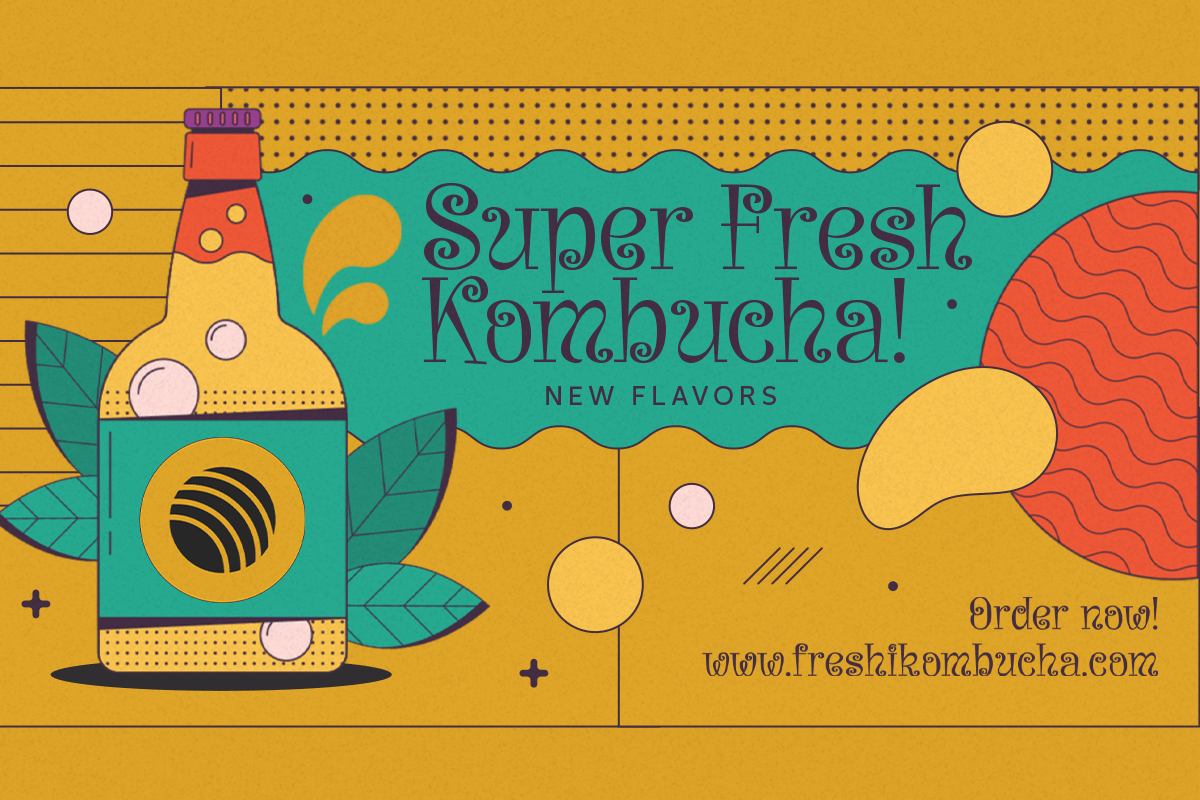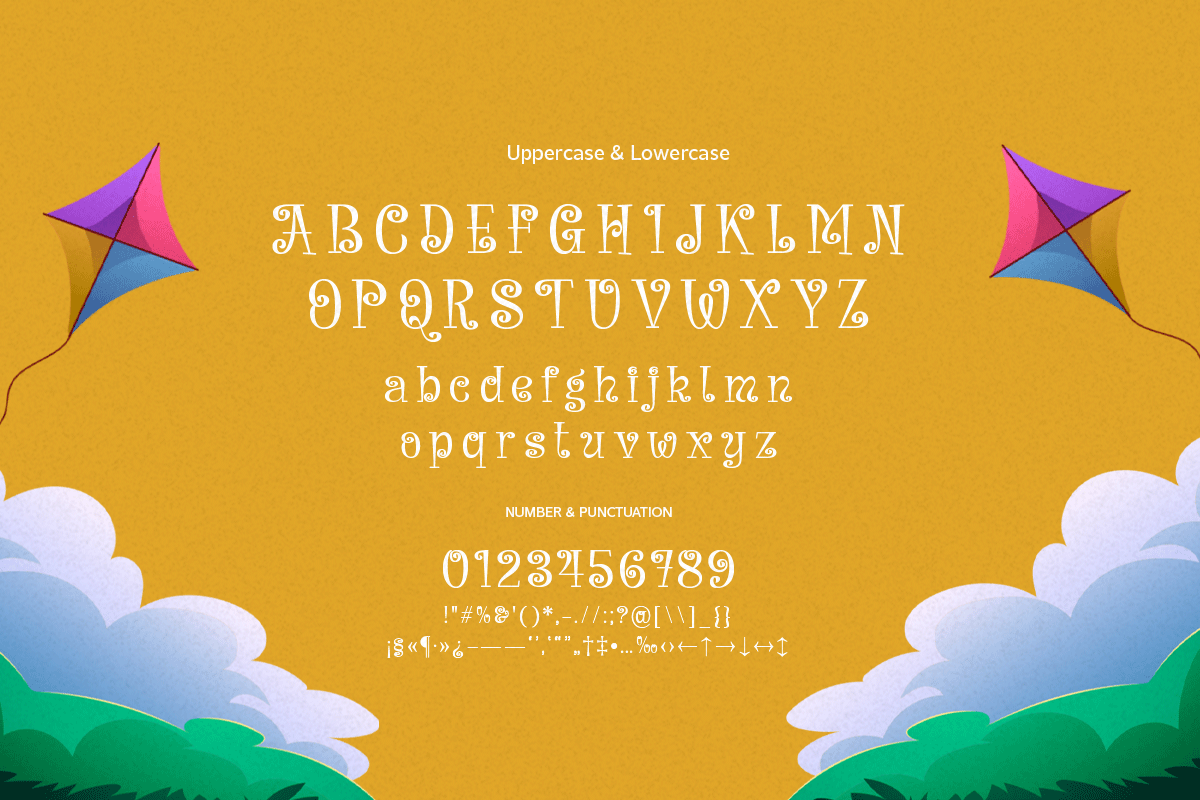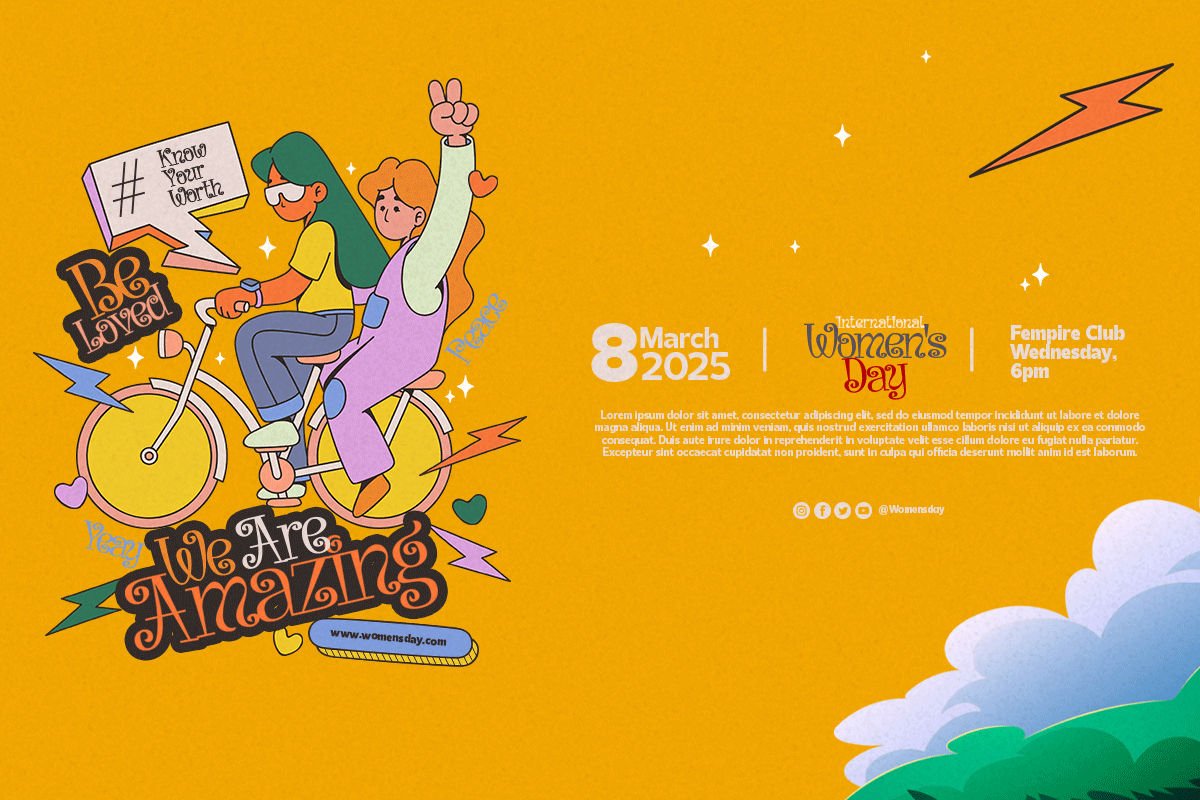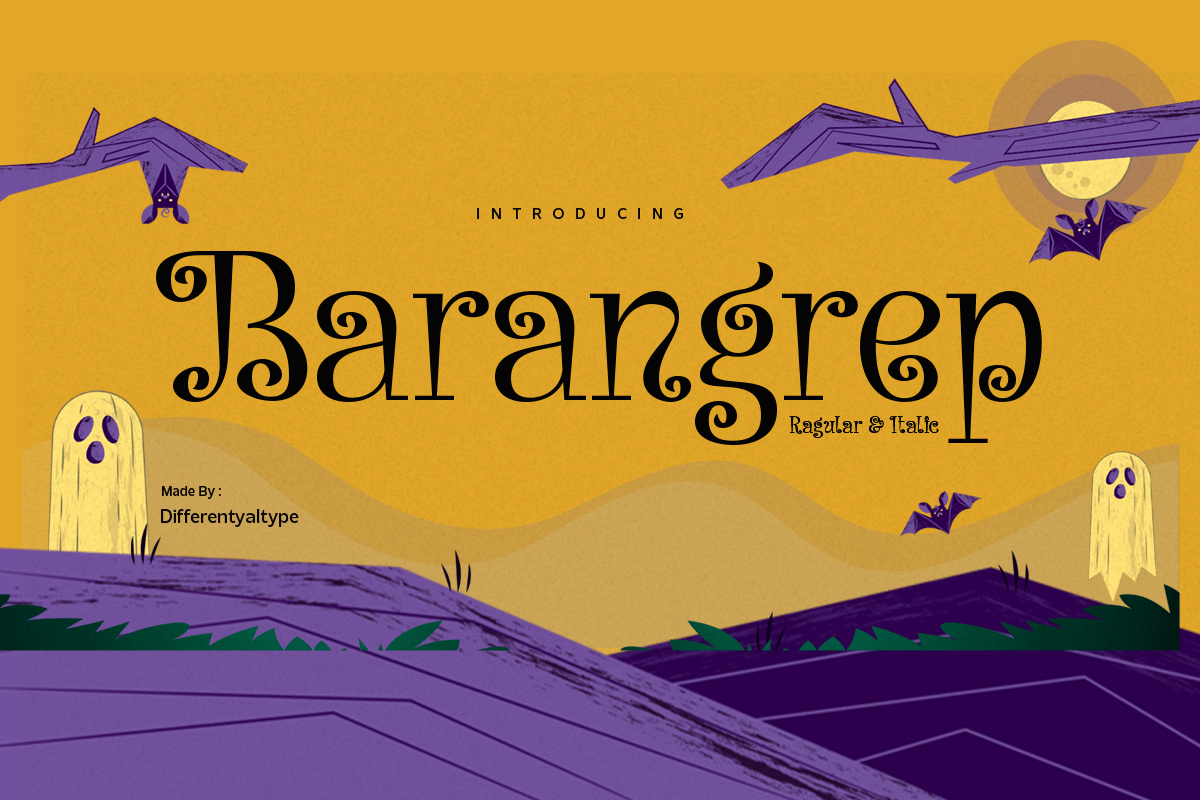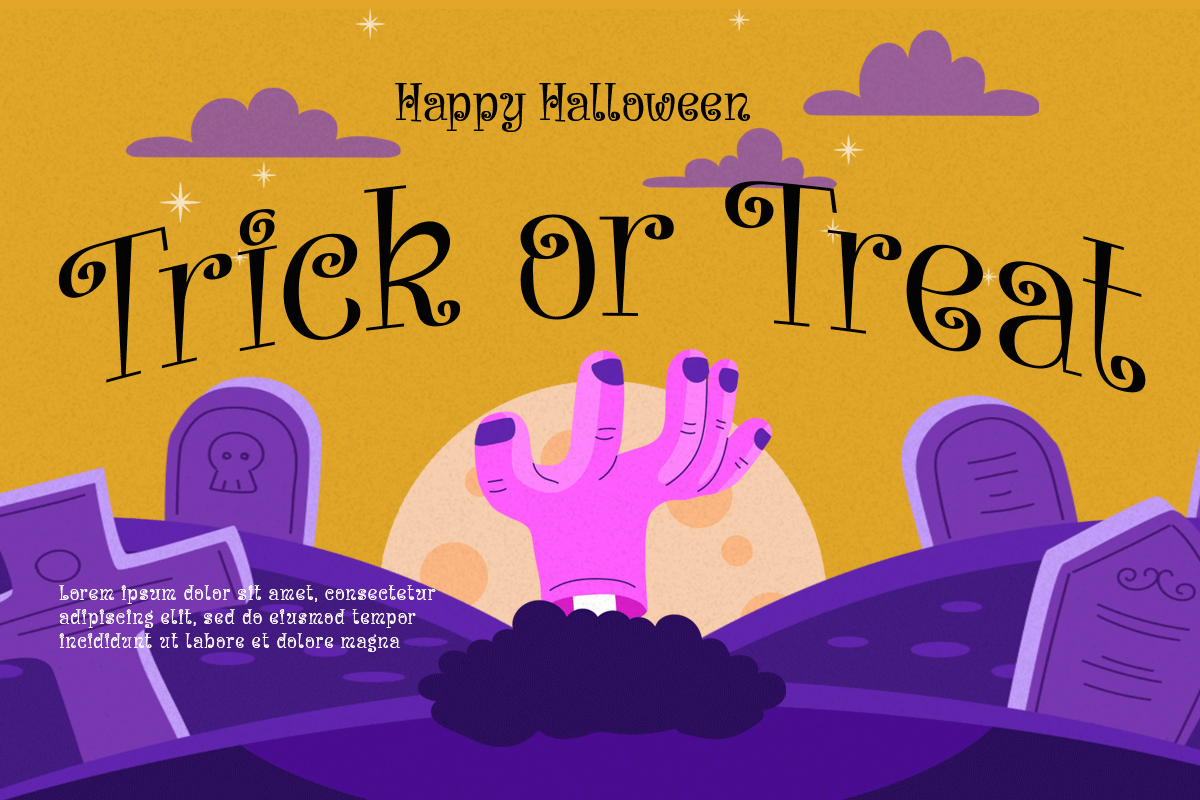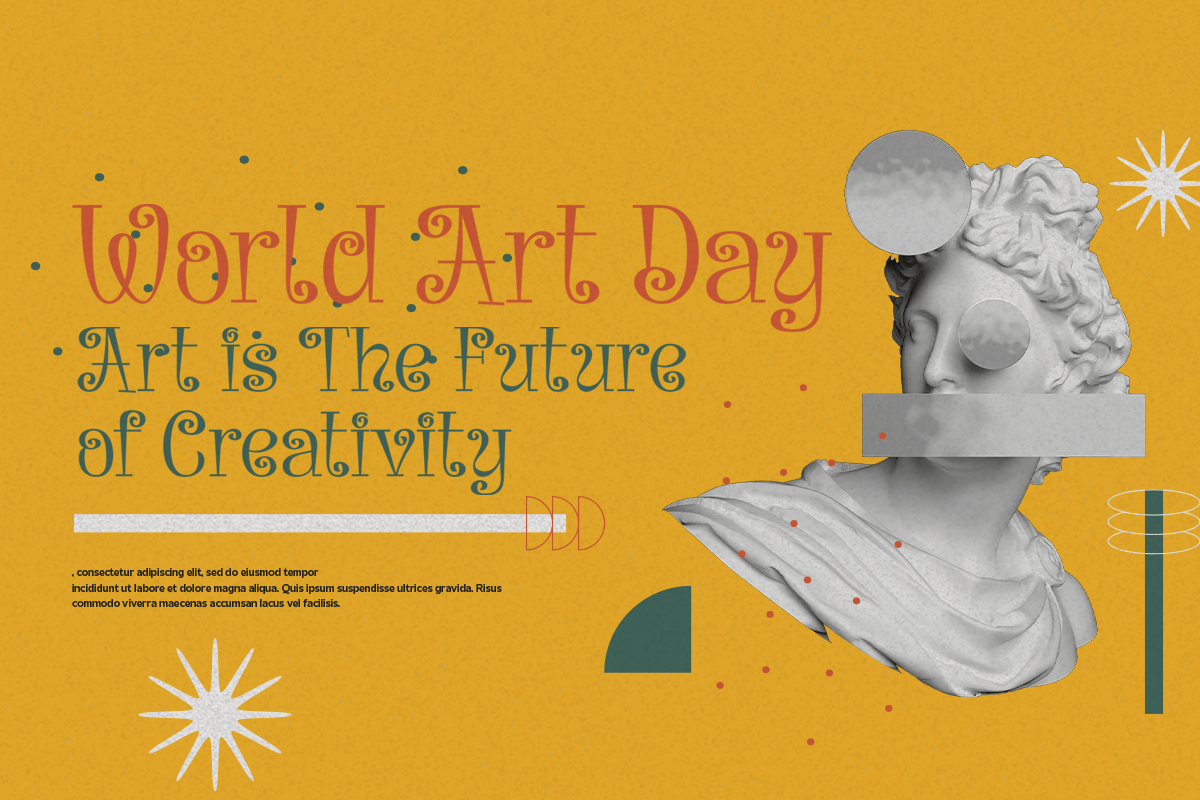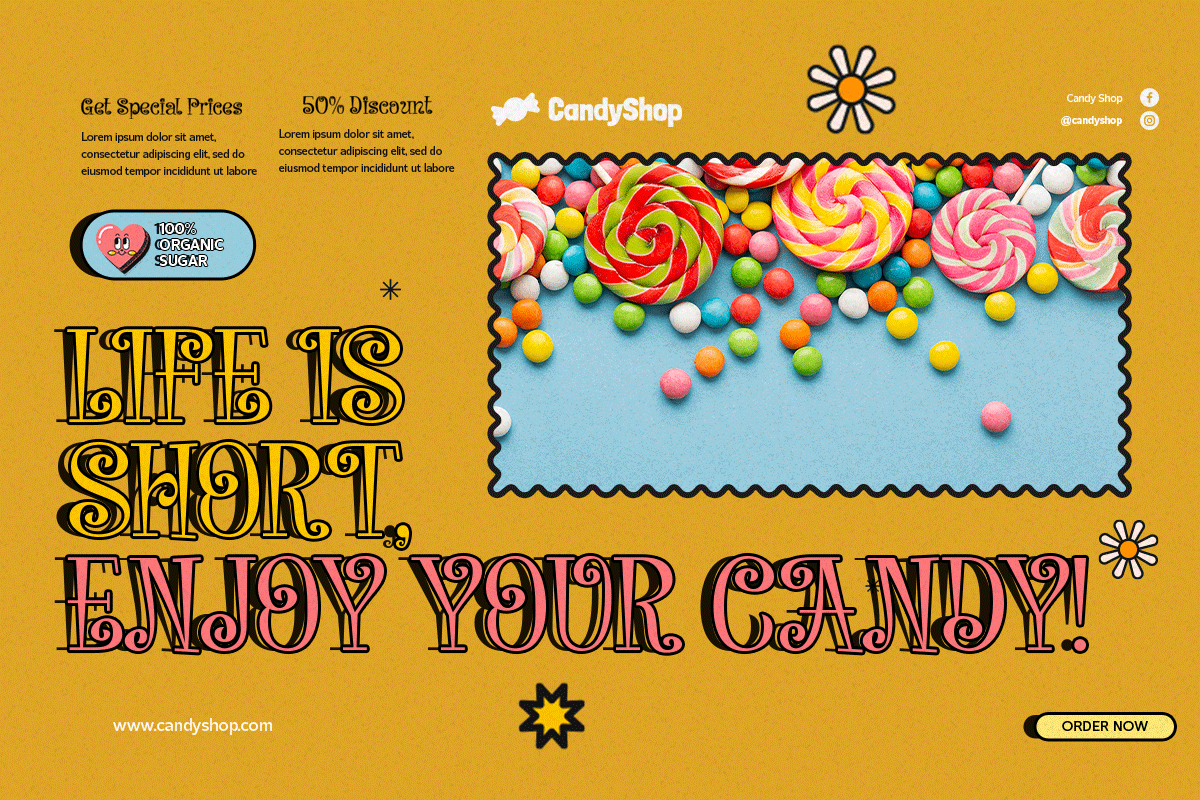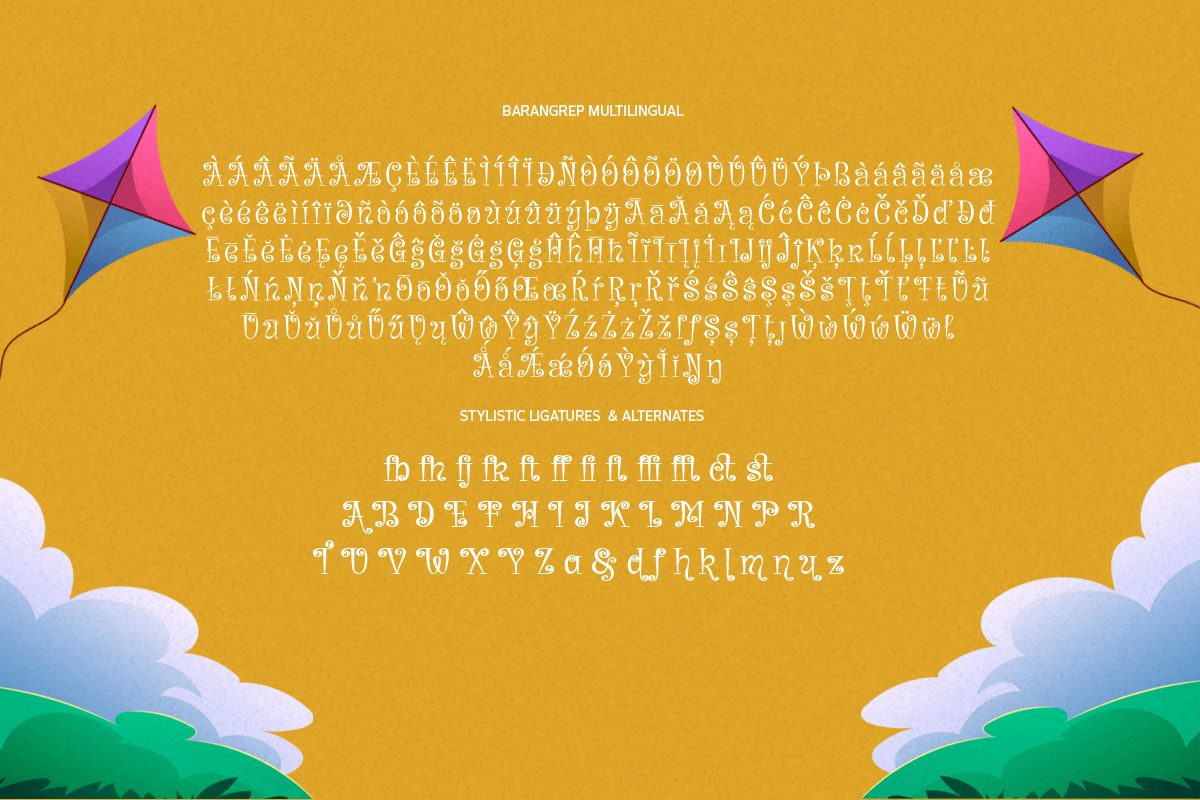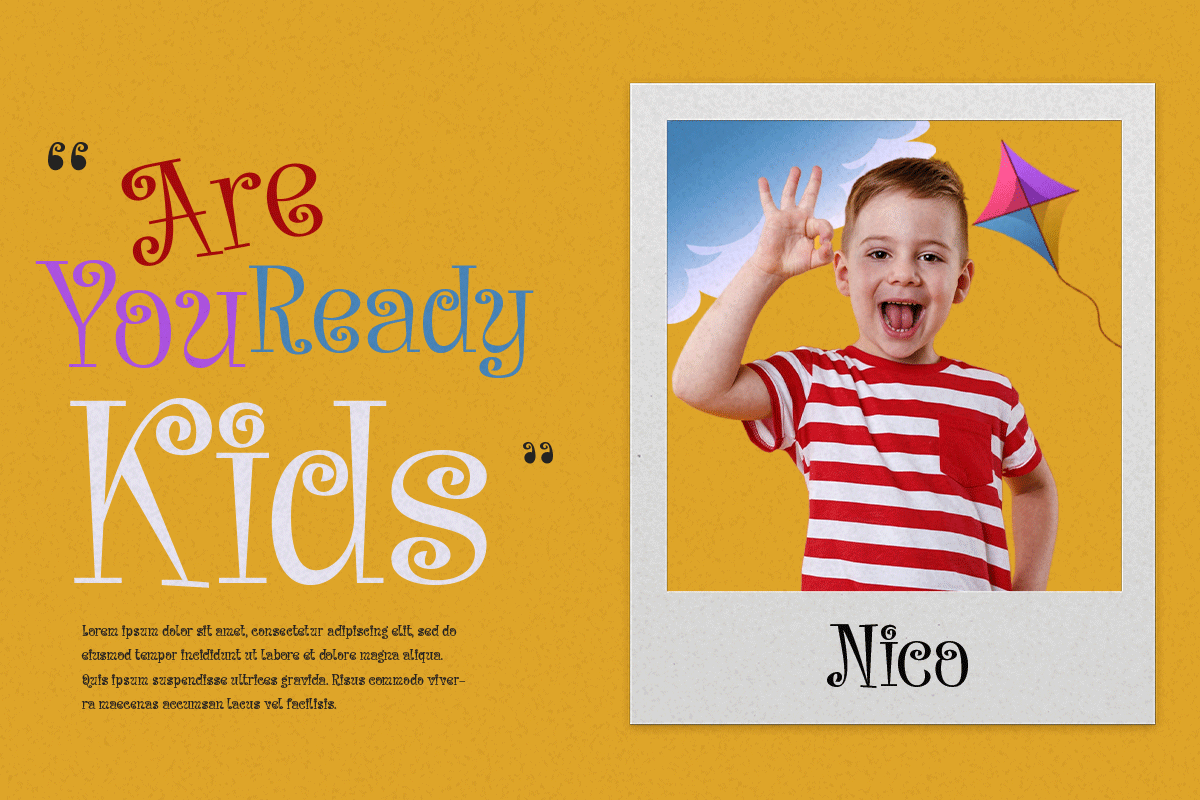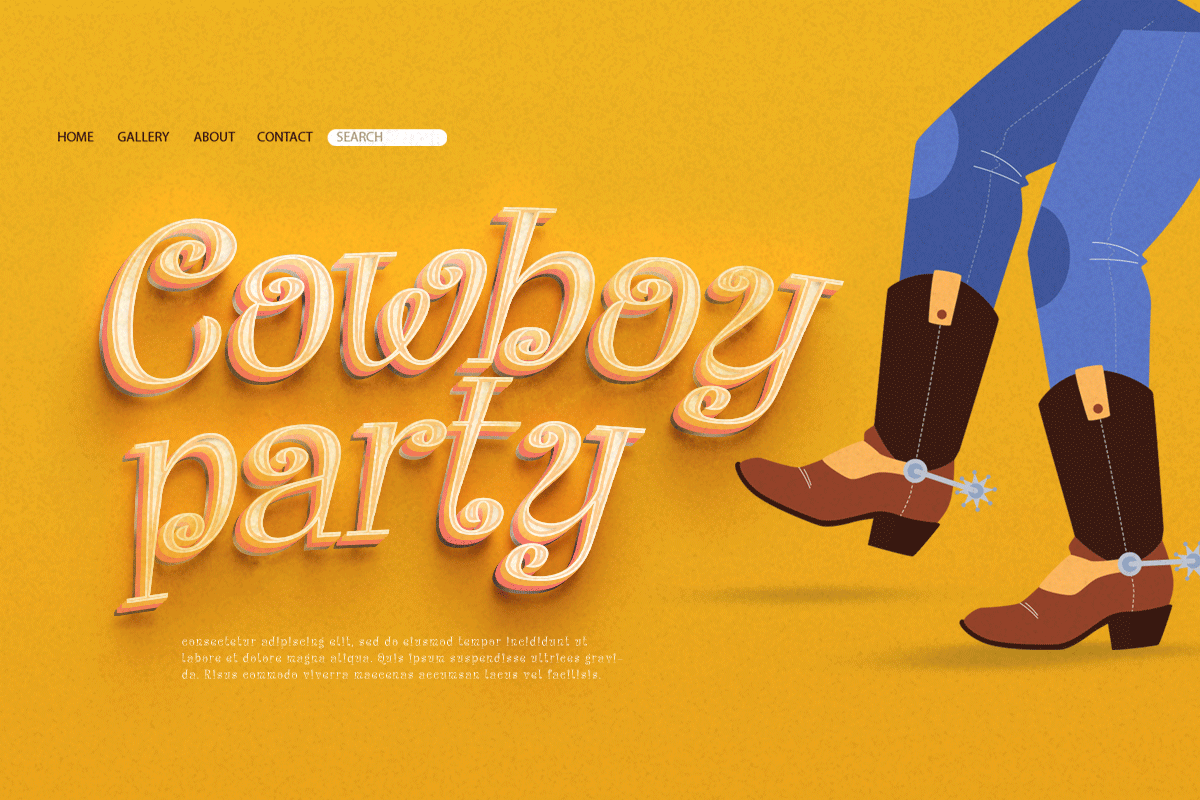
Barangrep - Halloween Font
Unveiling Barangrep, a captivating display font conceived from the echo of ghostly whispers and redolent with the ambiguous allure of All Hallows' Eve. Distinctive and enigmatic, its letterforms instantly etch themselves into the memory, crafting an indelible imprint. Barangrep adds chills and thrills, transforming mundane graphics into eye-catching Halloween masterpieces. Ideal for concocting bewitching Halloween party invites, enigmatic decoration touches, eerie greeting cards, spine-tingling horror flick graphics, or any other creation that seeks to convey a shiver under the guise of the seasonal spirit.